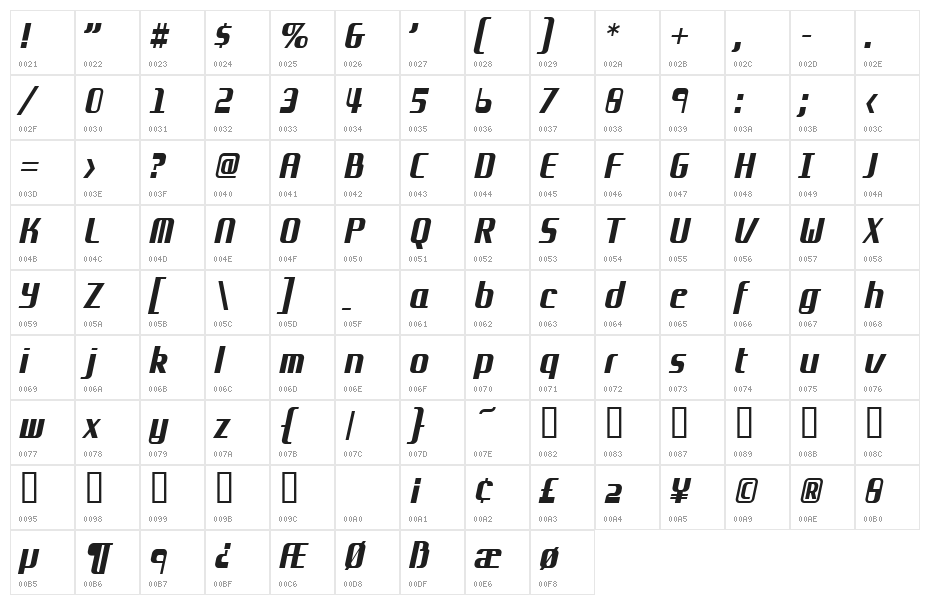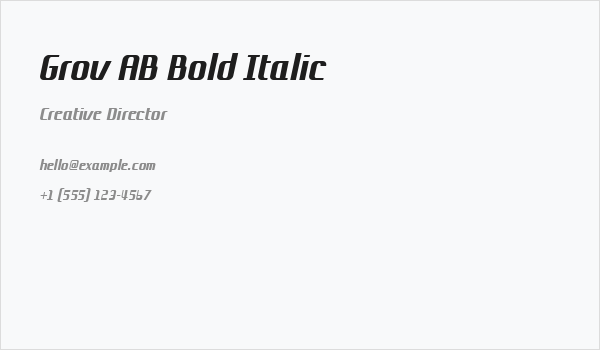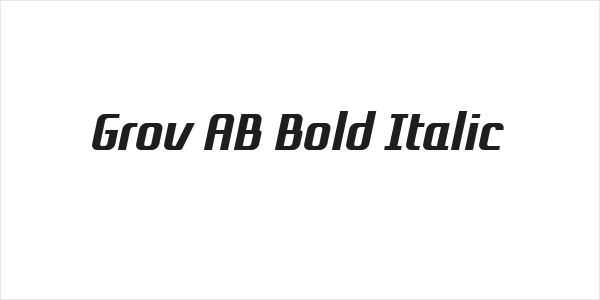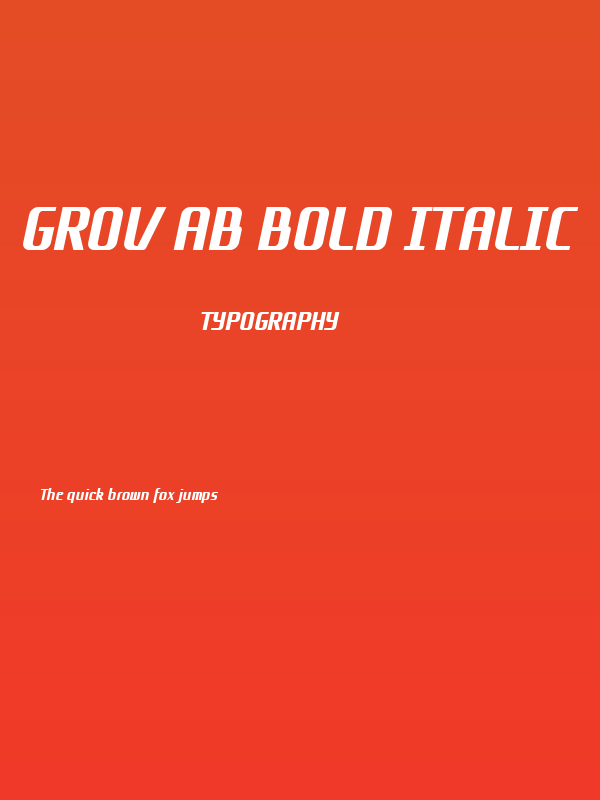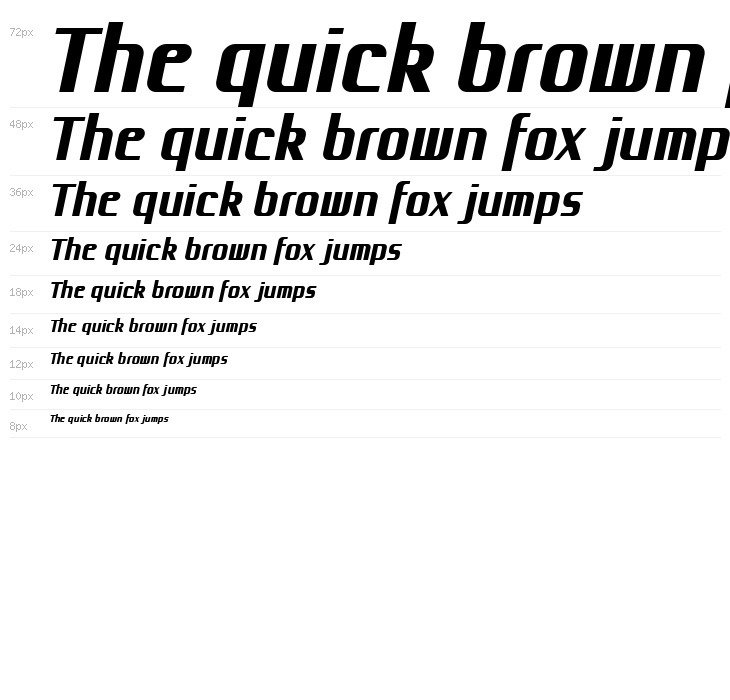
Grov AB Bold Italic Font
Grov AB Bold Italic Description
This font exhibits a bold and italicized style, characterized by its strong, angular lines and slightly condensed letterforms. The uppercase and lowercase letters maintain a consistent slant, giving the typeface a dynamic and forward-moving appearance. The numerals and special characters are designed with the same boldness and slant, ensuring uniformity across all glyphs. The font's modern aesthetic is enhanced by its clean and sharp edges, making it suitable for impactful and attention-grabbing designs.
| Proposed Projects | Ideal for branding, advertising, headlines, and sports-related designs where a strong, modern impact is desired. |